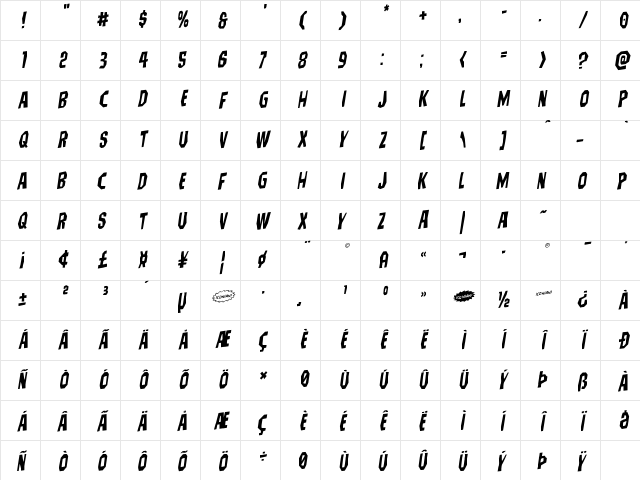
Hitchblock Staggered Rotalic Italic
Design Context for Hitchblock Staggered Rotalic
Hitchblock Staggered Rotalic is a composed and adaptable typeface that performs quietly and consistently across a wide range of design contexts. The slanted form adds forward momentum and visual energy.